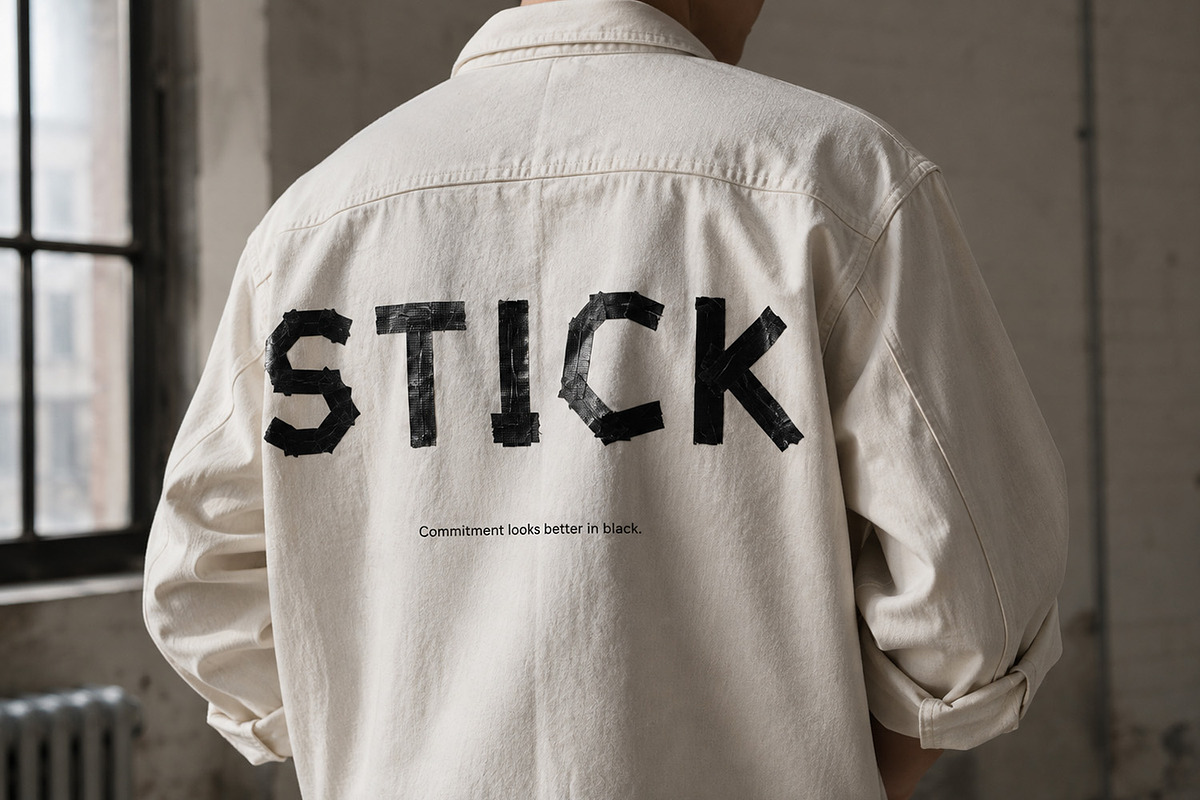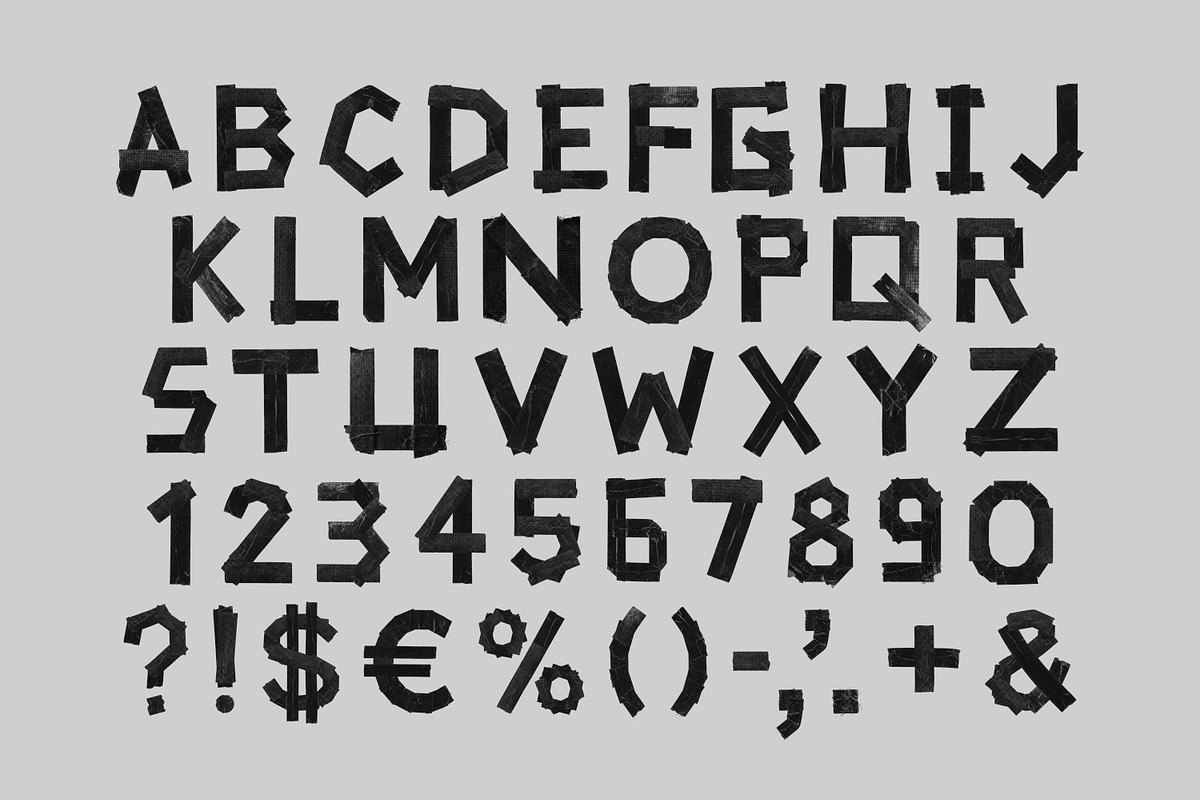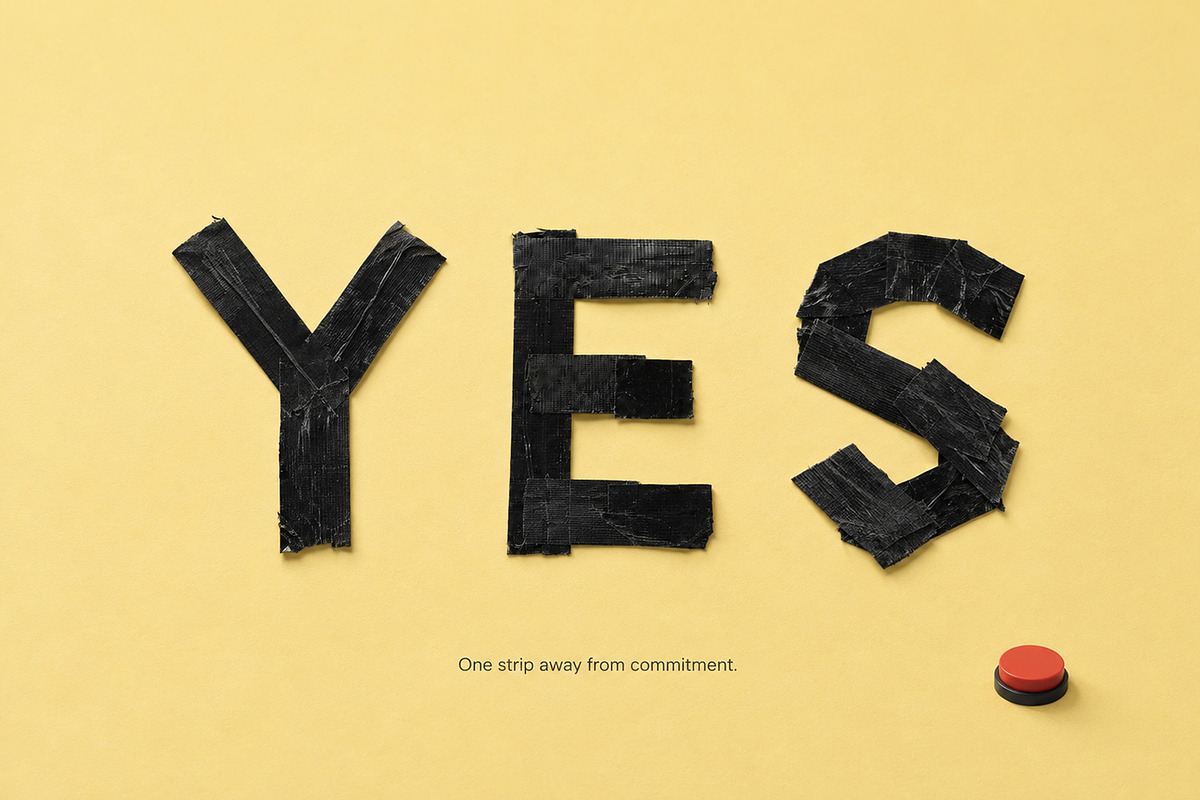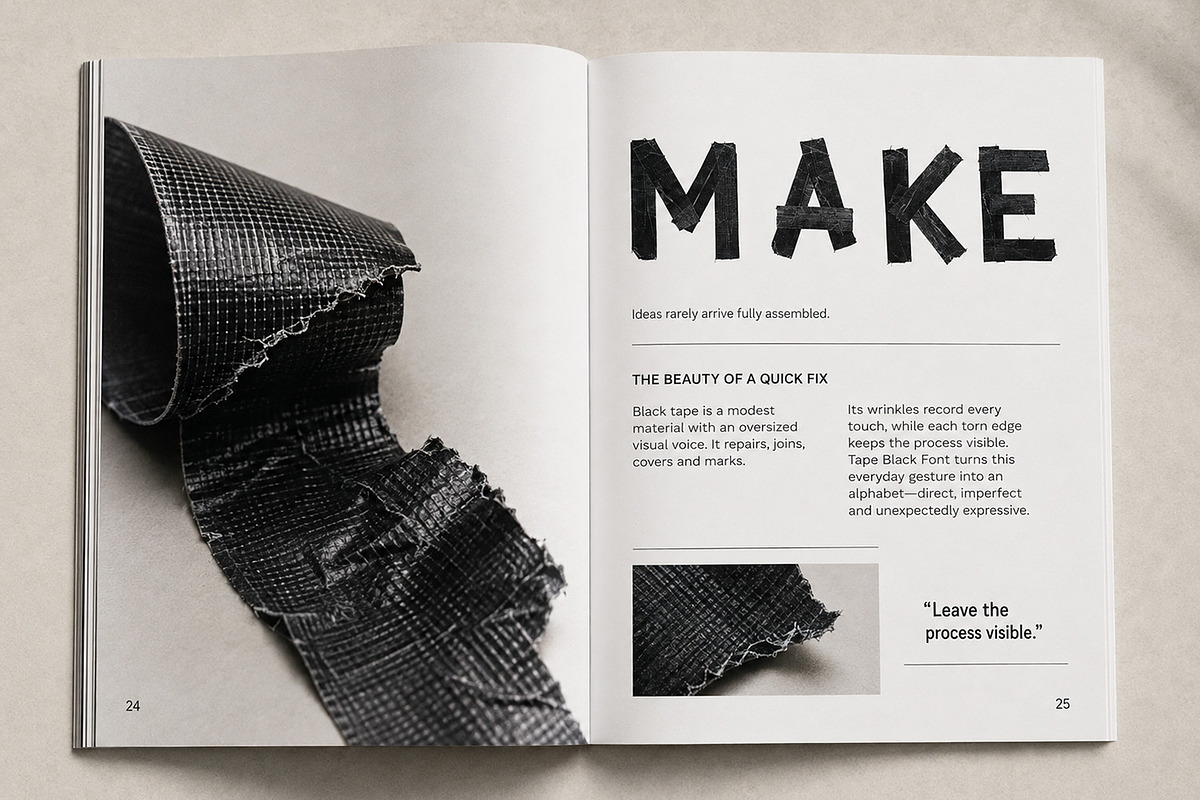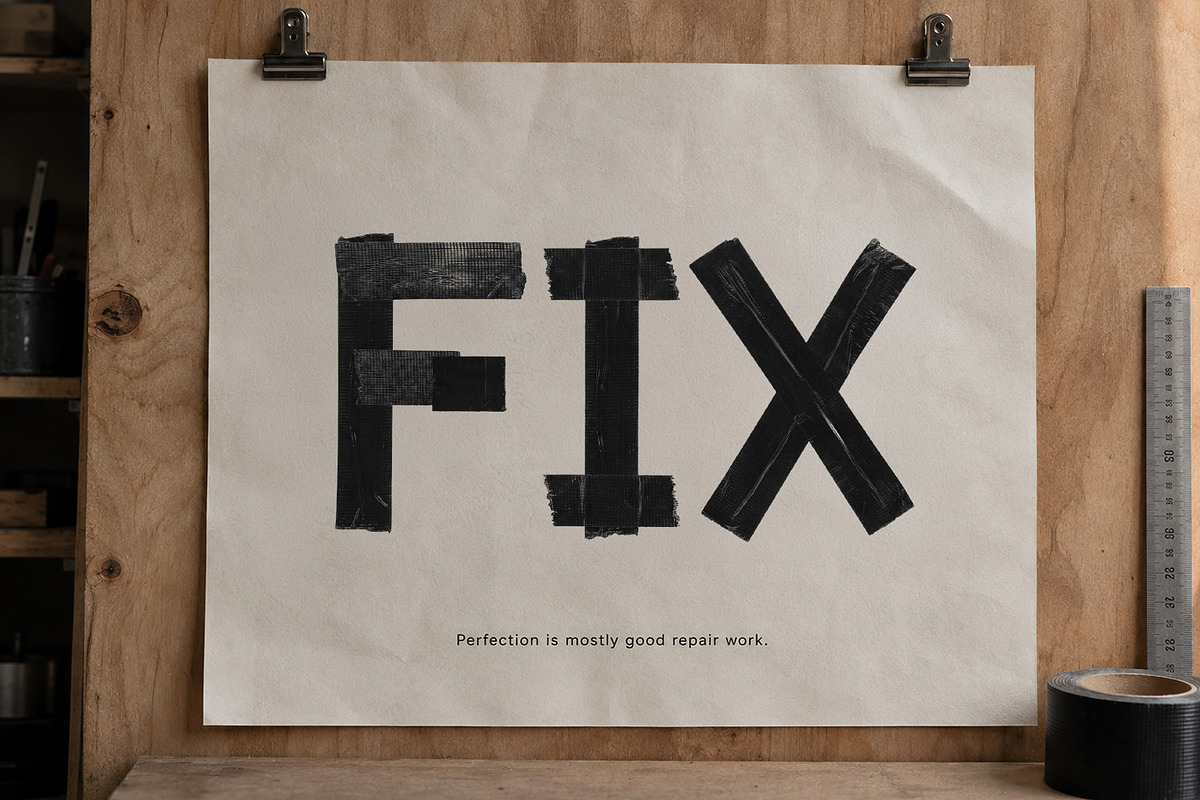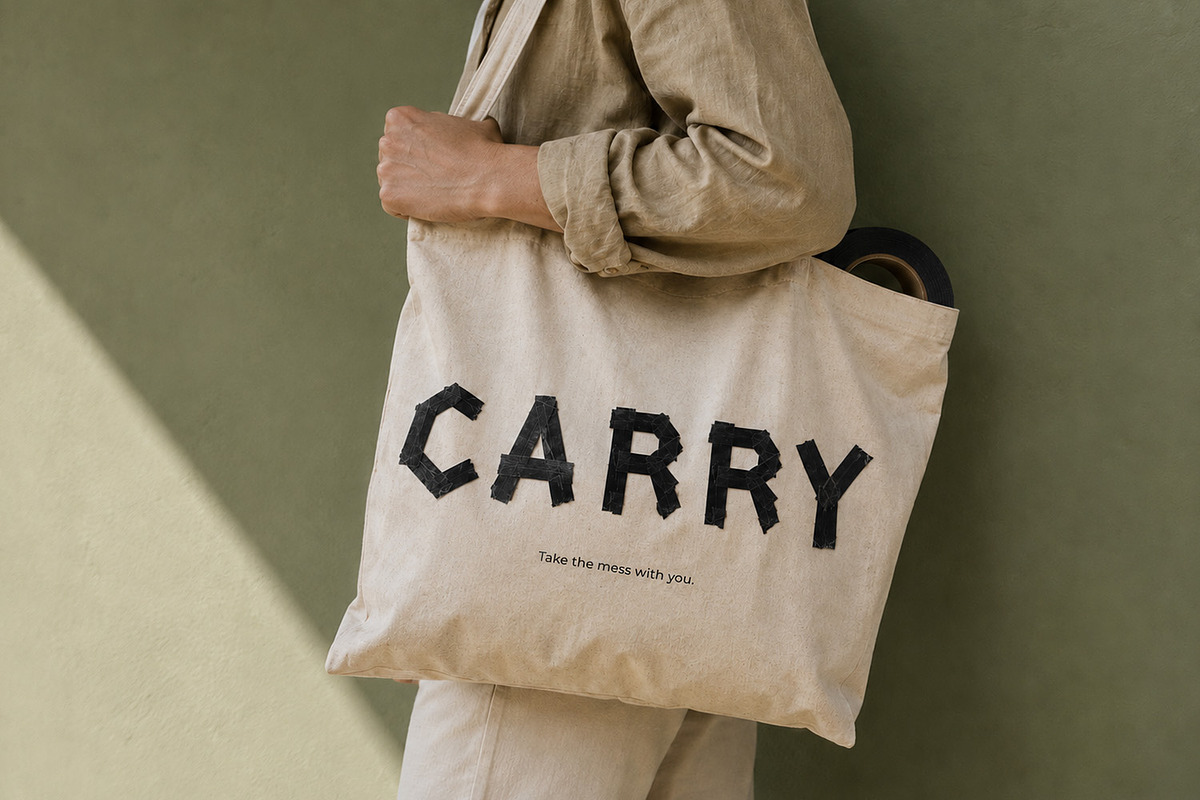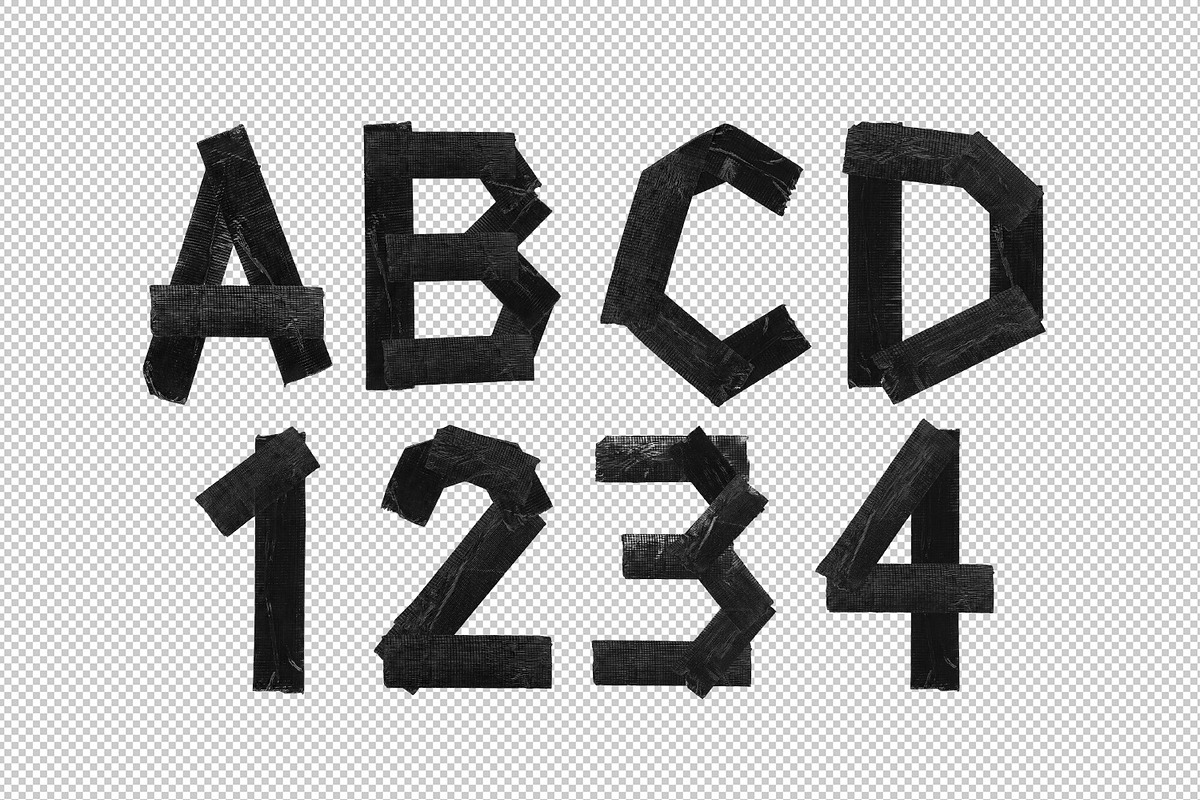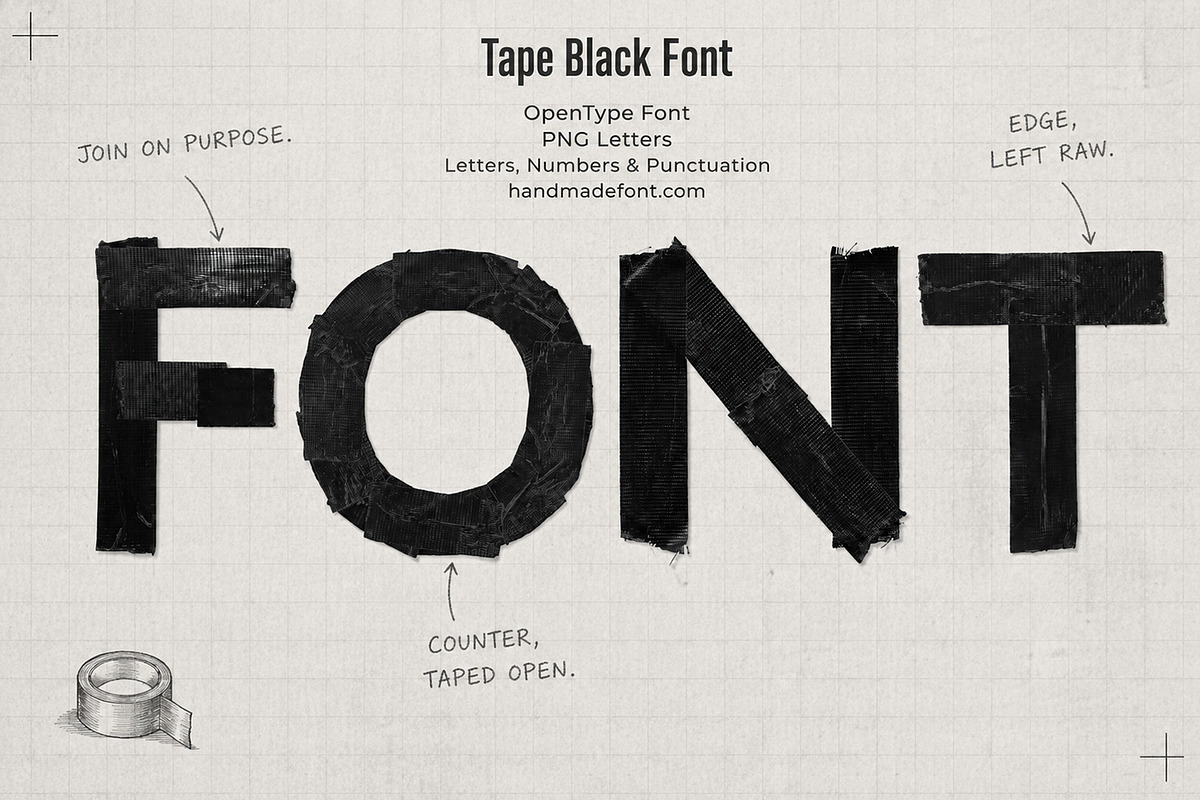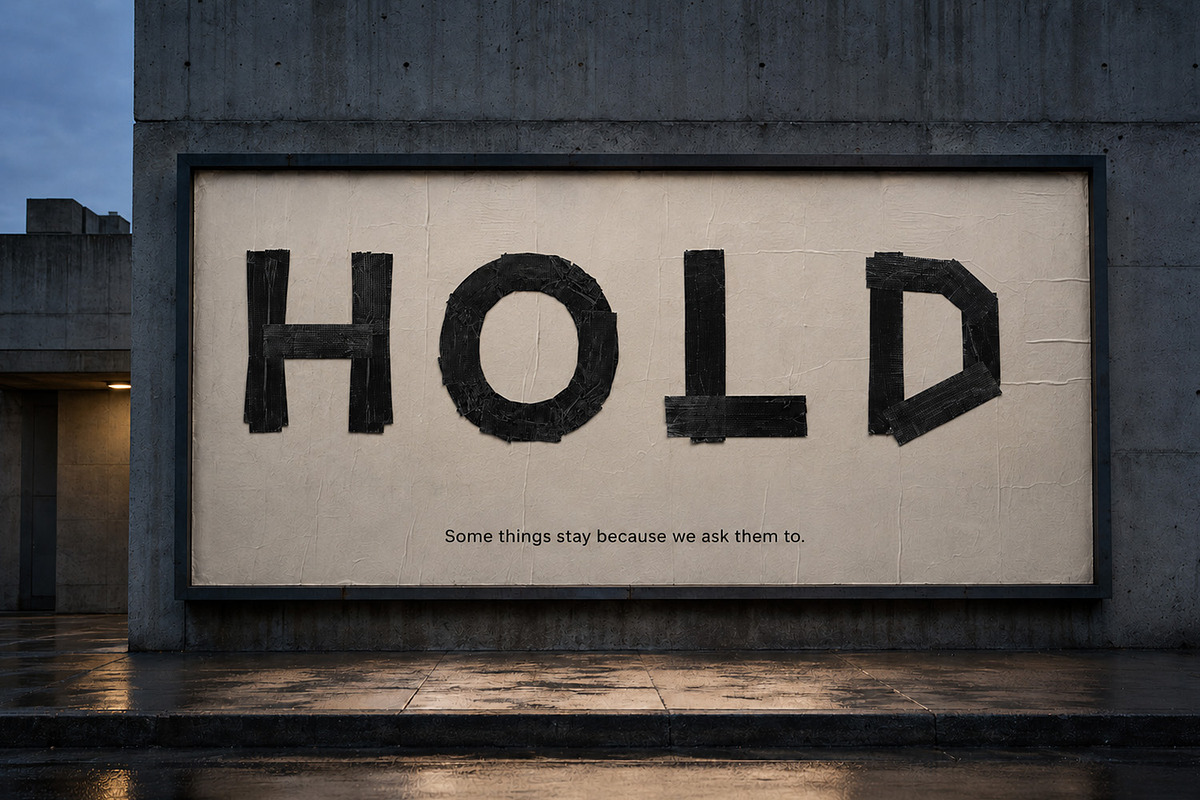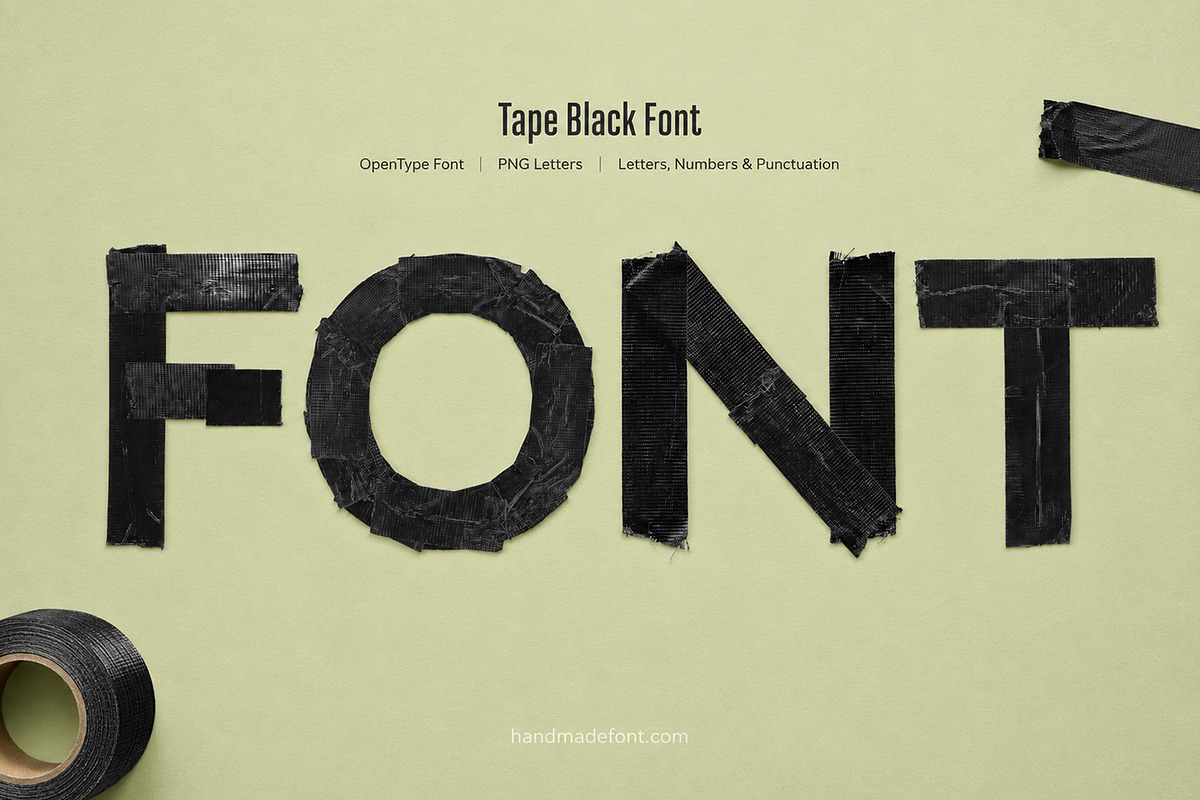
Tape Black Font
Tape Black Font brings the raw energy of torn adhesive strips to bold typography. Each character looks hand-built from layered black tape, with uneven edges, glossy texture, and striking imperfections that feel physical and immediate. Its expressive handmade style is ideal for music posters, streetwear, protest graphics, album covers, packaging, social media, and attention-grabbing headlines. The complete OpenType font includes uppercase letters, numbers, and punctuation for flexible display design. You also receive every character as an individual PNG file on a transparent background, making it easy to create tactile compositions, collages, and custom layouts. Tape Black Font turns words into statements.
Letters : A B C D E F G H I J K L M N O P Q R S T U V W X Y Z
Numbers : 0 1 2 3 4 5 6 7 8 9
Others : ! ? - . ' $ € % & #